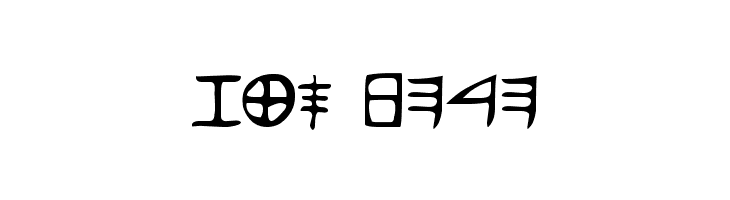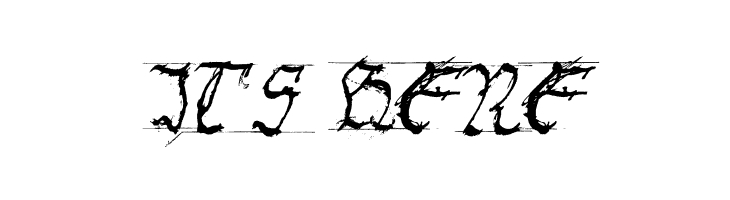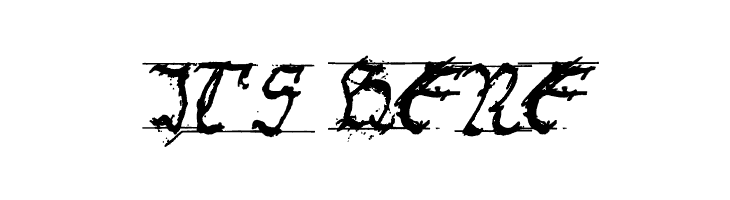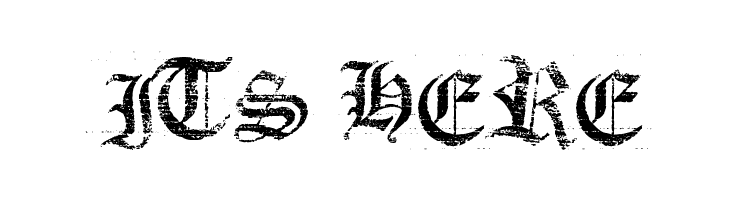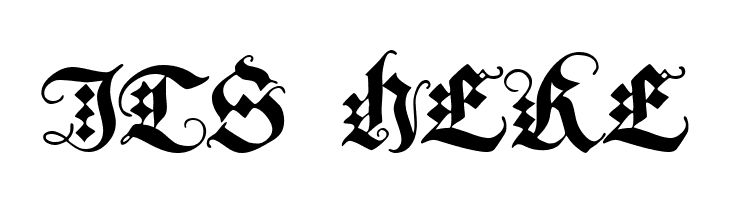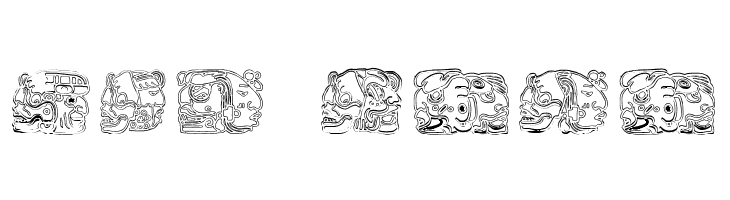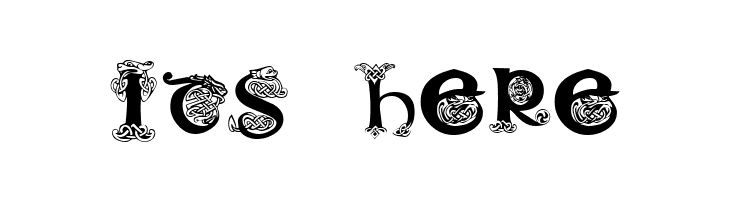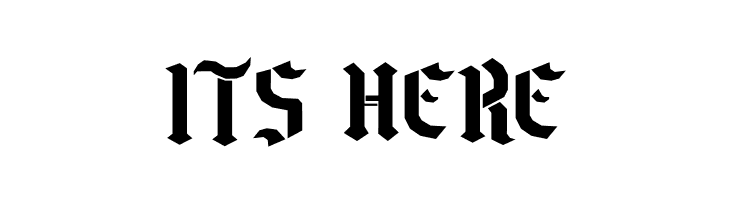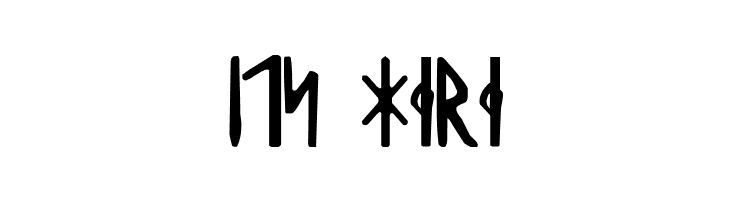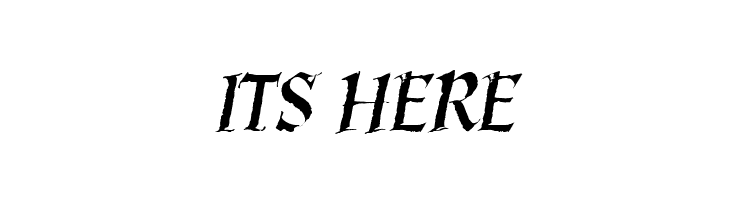
An abstract, symbolic font with a blend of sharp angles and smooth curves.
A Gothic-style font with a rough, distressed appearance and dynamic contrast.
A bold, distressed Gothic font with a hand-drawn, medieval appearance.
A bold, gothic-inspired stencil font with sharp, angular lines and a medieval flair.
A bold, geometric font inspired by ancient runic alphabets.
A decorative, hand-drawn font with a mystical and playful style.
A bold, abstract font with geometric, blocky characters.
A bold, tribal-inspired font with rugged, angular strokes and a hand-drawn aesthetic.
An ornate Blackletter font with bold, angular lines and elaborate flourishes.
An ornate, Gothic-inspired decorative font with intricate floral designs.
A Gothic-style font with ornate, medieval-inspired characters.
A decorative Gothic script with intricate, angular lines and ornate detailing.
A bold, Gothic-style font with intricate, angular detailing.
An ornate and intricate Blackletter font with a medieval and historical appearance.
Ornate Gothic-style initials with intricate floral designs.
A bold, blackletter font with a contour effect, offering a dramatic, Gothic style.
A decorative blackletter font with bold, intricate designs and high contrast.
A bold, gothic Blackletter font with intricate, angular designs.
A bold, shadowed Blackletter font with intricate detailing and historical flair.
A bold, angular font with a historical and powerful aesthetic.
An ornate blackletter font with intricate, gothic-inspired design.
A bold, ornate Blackletter font with a classic Gothic style.
A bold, gothic-style font with intricate, medieval-inspired letterforms.
An ornate and decorative font with a calligraphic style.
A decorative blackletter font with intricate, angular strokes and medieval flair.